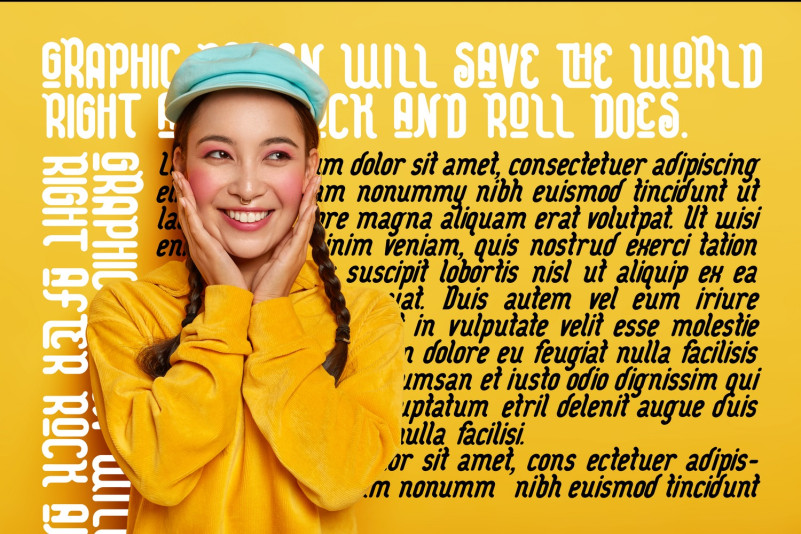
Storage System Font
STORAGE SYSTEM – Rounded Font is a simple, condensed sans serif font with bold and complex personality. It is a clean, minimal, modern sans typeface. It looks smooth in any layout with its sleek rounded lines, use it for your magazines, brochures and editorial layouts. With this rounded version, you can be even more expressive in your design projects. It’s makes awesome headings, it looks great on its own or with imagery, body copy looks neat and tidy.
To make it look more unique, here we prepared some ligatures:
AC AE AF AG AH AI AN AO AQ AS AT AV BJ CA CH CO DA DG DJ EA EB ED EE EF EG EH EM EO EP ER ES ET EY FA FB FE FD FO FR GA GB GD GI GR GT HA HB HE HH HO HS KA KE KH KO KU LA LE LG LH LO LU OB OC OG OH OK OL OM ON OO OQ OR OT RA RE RO RU SA TA TE TH TO